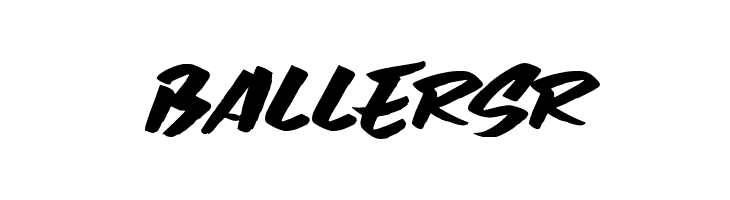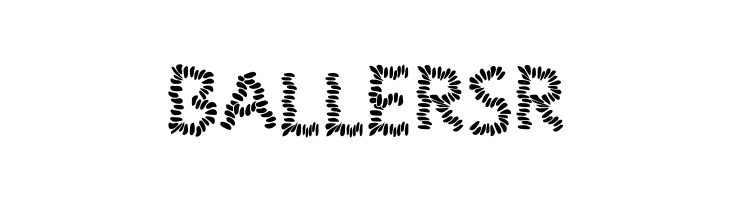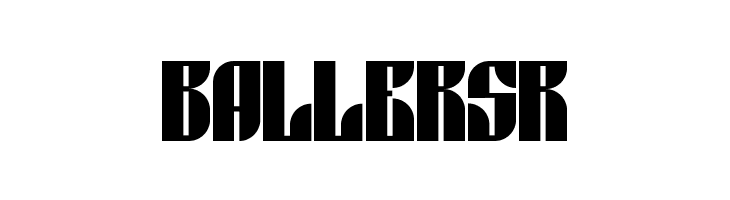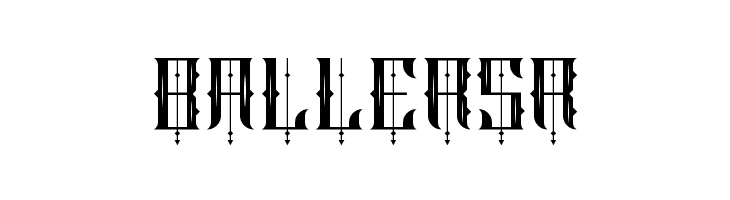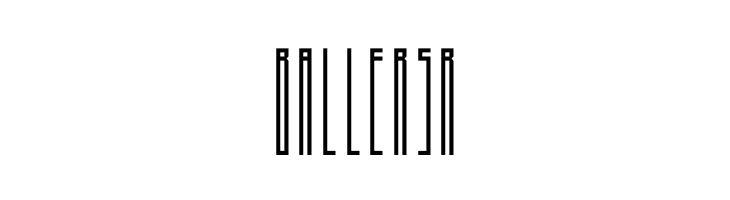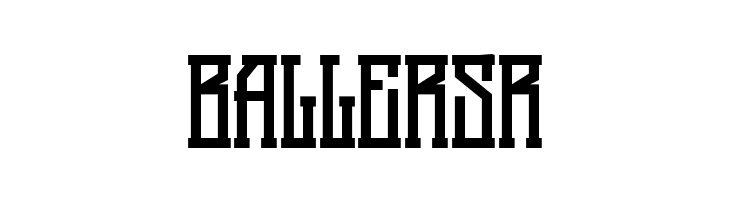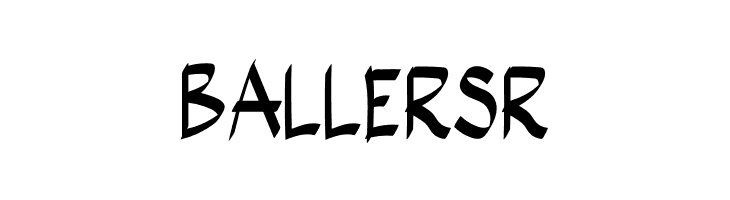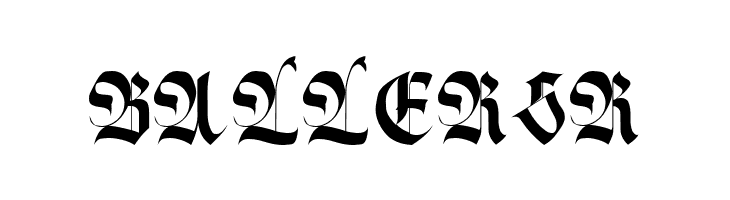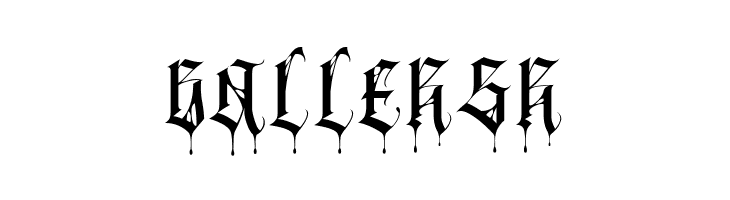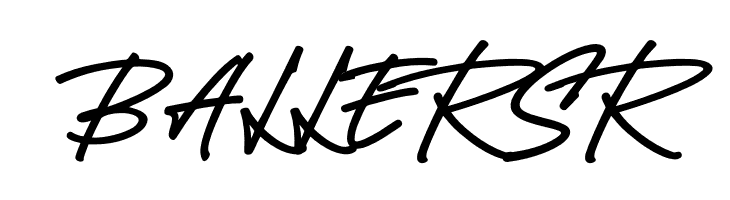
A decorative font with elegant swashes and flourishes, perfect for artistic designs.
A bold, hand-drawn font with an energetic and playful style.
A bold, brush-stroke style font with dynamic, textured characters.
A bold, festive font with snow-capped, three-dimensional letters perfect for holiday themes.
A bold, shadowed font with an organic, textured appearance.
A bold, dynamic script font with a handwritten style.
A bold, handwritten-style font with dynamic, brush-like strokes.
A dynamic and elegant cursive script font with flowing, interconnected strokes.
A dynamic and expressive handwritten font with fluid, cursive strokes.
A bold, geometric font with high contrast and strong visual impact.
A bold, angular font with sharp lines and dramatic serifs.
A bold, angular font with sharp edges and a dynamic style.
A dynamic and elegant script font with flowing, expressive letterforms.
A futuristic, geometric font with consistent stroke width and monospaced feel.
A Gothic-inspired font with sharp, intricate details and a dramatic style.